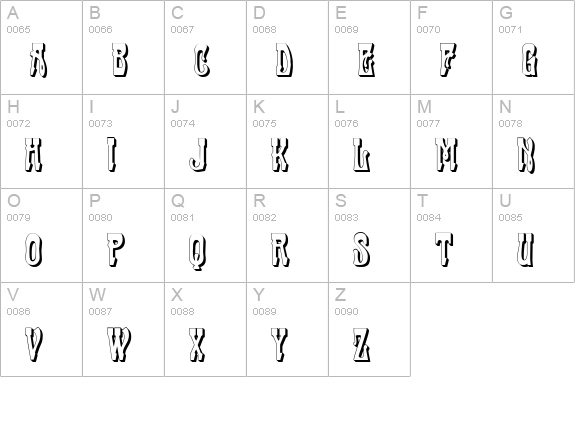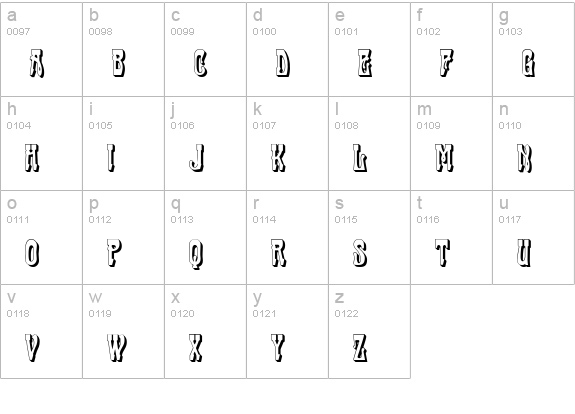
Traktir-Modern 3-D Font Details
Traktir-Modern 3-D font is a captivating and innovative typeface that effortlessly combines modern aesthetics with a three-dimensional twist. This font is the perfect choice for designers and creatives who seek to add depth and dimension to their projects. With its bold and dynamic strokes, Traktir-Modern 3-D font commands attention and makes a striking impact. Each character is meticulously crafted to create a visually stunning effect, as if the letters are leaping off the page. This font is a true testament to the power of design to captivate and engage the viewer. What sets Traktir-Modern 3-D font apart is not only its remarkable design but also its accessibility. It is freely available for download at FontsMarket.com, making it easily accessible to all designers, regardless of their budget. Now, you can add this extraordinary font to your collection without any financial constraints. Whether you are working on a branding project, a poster design, or even a website, Traktir-Modern 3-D font will elevate your work to new heights. Its versatility allows it to seamlessly integrate into various design styles, from sleek and modern to bold and edgy. Download Traktir-Modern 3-D font today from FontsMarket.com and unlock endless creative possibilities. Add depth, dimension, and a touch of modernity to your designs with this extraordinary typeface. Embrace the power of Traktir-Modern 3-D font and let your imagination soar.